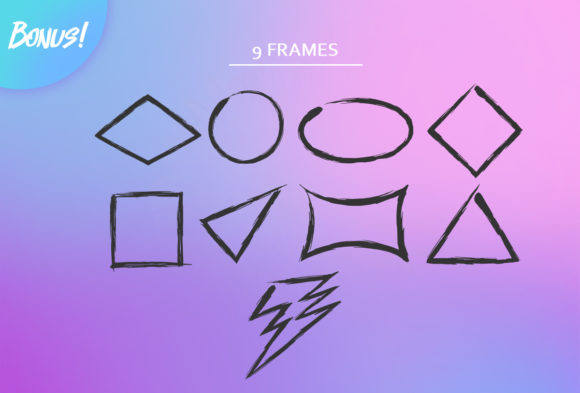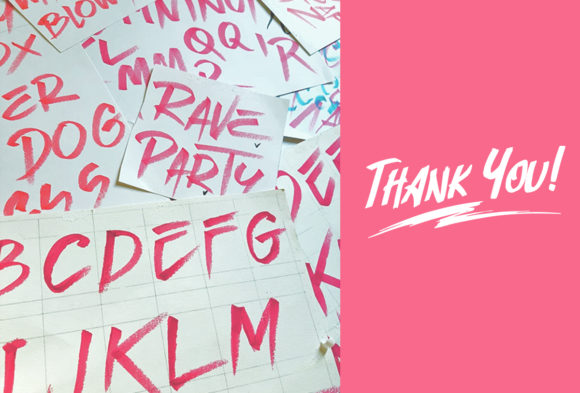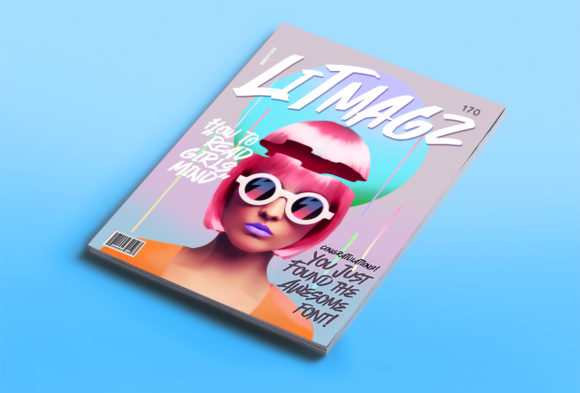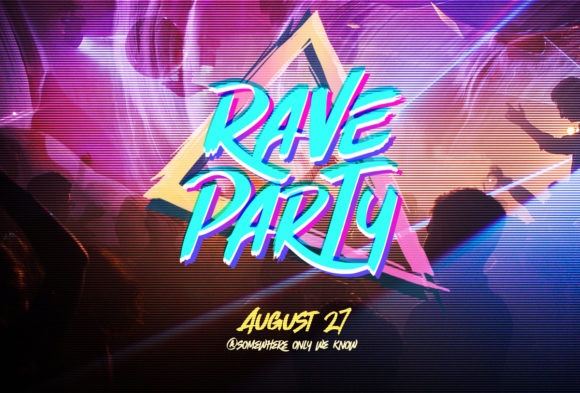
About Quickzag Font
The Quickzag is a hand drawn marker typeface with an energetic set of marker fonts with fast swipes yet a gentle attitude.
It’s suitable for adding an energetic, retro, synth-wave, or a simple and clean feel that makes your statement, product, poster, merchandise, logo or brand stand out.